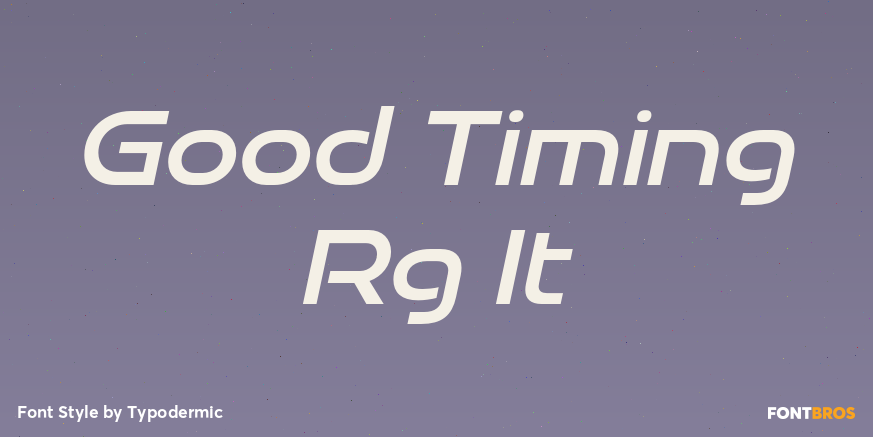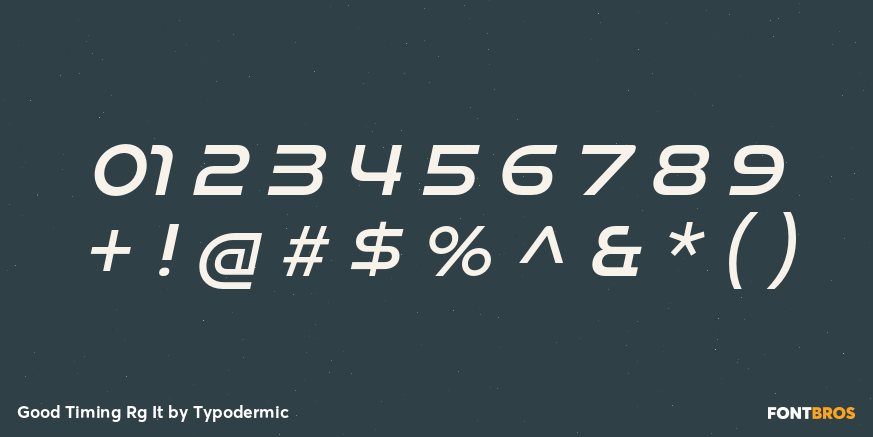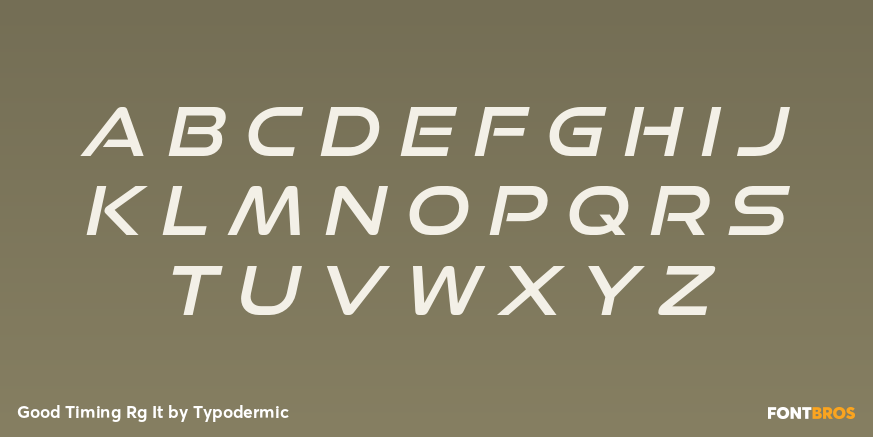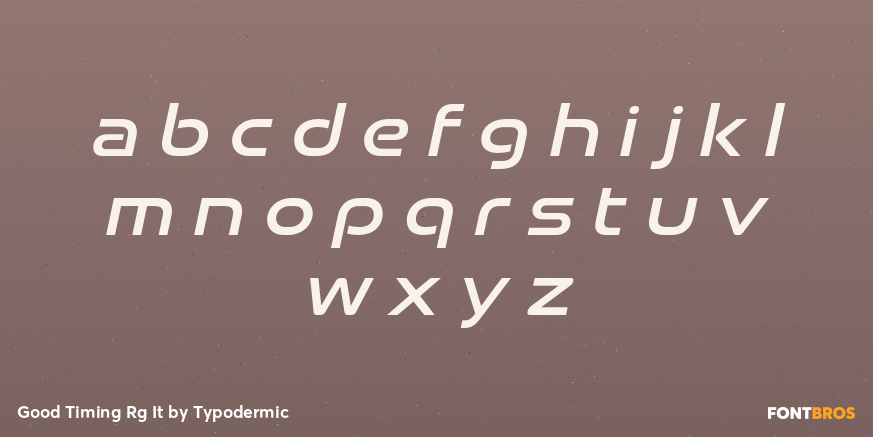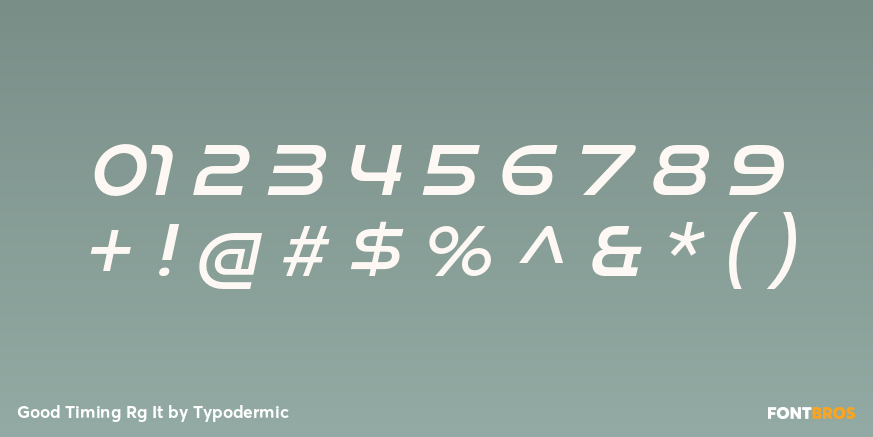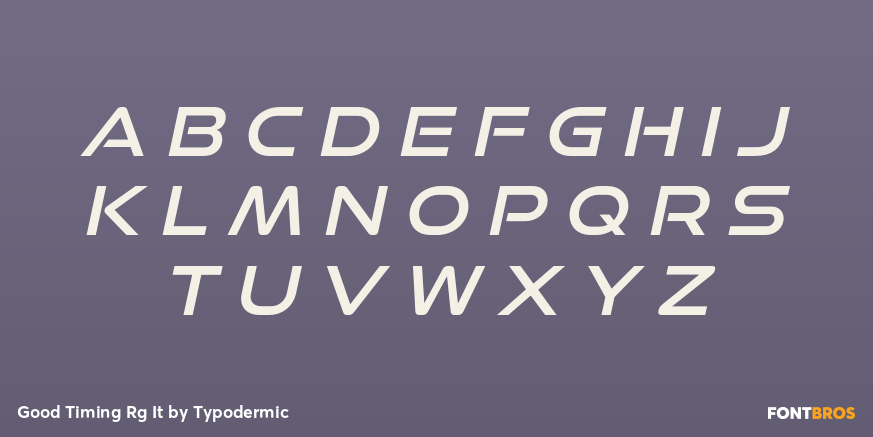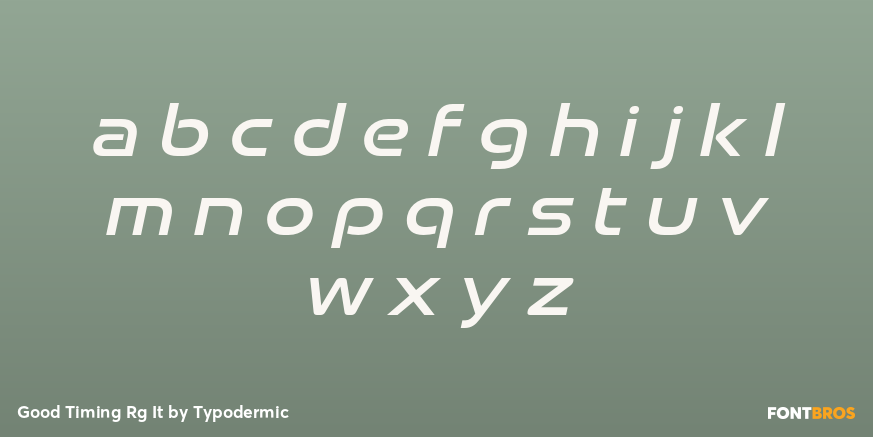
Good Timing Rg It
Good Timing was created for projects that like the wide, streamlined character of Good Times but need lowercase and a deeper typographic hierarchy. Its broad geometric forms retain the technical feel of the earlier family, while mixed-case text makes it practical for product names, modes, messages, and short explanatory copy rather than display headlines alone.
That distinction matters when an identity has to extend from a product name into the system surrounding it. Home batteries, solar inverters, smart electrical panels, bidirectional chargers, and energy-management platforms may need equipment names, operating modes, charging states, setup screens, and concise status messages. Good Timing can keep those elements in the same visual language without forcing every line into capitals.
Connected fitness and training hardware present a similar problem. Smart exercise bikes, rowing machines, treadmills, cycling trainers, strength stations, and recovery devices move constantly between product names, workout titles, user profiles, interval labels, performance summaries, and short coaching messages. Good Timing can handle the large technological moments while sentence case gives supporting information a calmer second level.
Vehicle interfaces and companion systems are another natural setting. EV dashboards, e-bike displays, charging screens, drive-mode graphics, instrument-cluster headings, and vehicle apps combine large mode names with navigation destinations, profiles, range messages, charging information, and settings.
The same principle applies to prosumer technology such as audio equipment, imaging hardware, drones, 3D printers, and fabrication tools. Model-family names, operating modes, presets, companion software, onboarding screens, and launch graphics can remain visibly related across both physical products and digital interfaces.
Support for Latin-based languages, Greek, and Cyrillic also helps internationally deployed products retain the same identity across scripts and regional markets.
Good Timing solves the problem that appears after a wide technological display style has been chosen and the project needs names, settings, messages, and short mixed-case text that still belong to it.